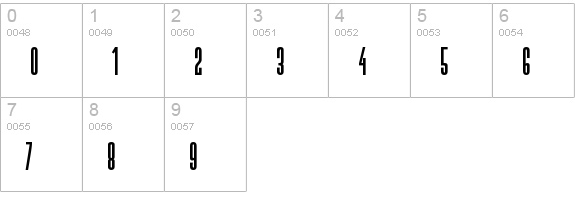
NeonlightDB Normal Font Details
NeonlightDB Normal is the standard, neutral variant in the NeonlightDB typeface family \xE2\x80\x94 well suited to general body text, paragraphs, and standard typographic work.
NeonlightDB Normal font is a sleek and modern typeface that exudes a vibrant and energetic aesthetic. Its sharp lines and bold design make it perfect for creating eye-catching designs and captivating headlines. This versatile font is suitable for a wide range of projects, from posters and banners to logos and branding. The best part is that NeonlightDB Normal font is completely free to download at FontsMarket.com. This means you can easily access this stylish font and use it in your projects without any cost. Don't miss out on the opportunity to add this dynamic font to your collection and elevate your designs with its electrifying presence. Download NeonlightDB Normal font today and let your creativity shine!